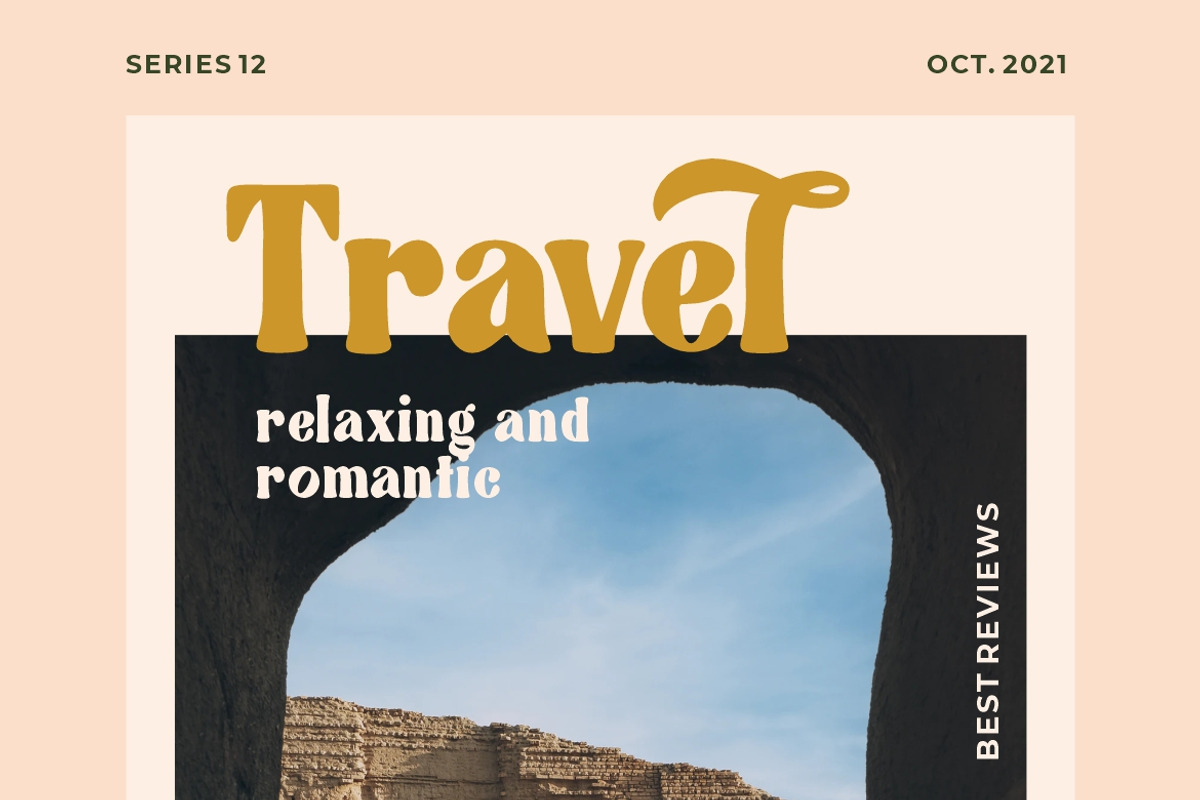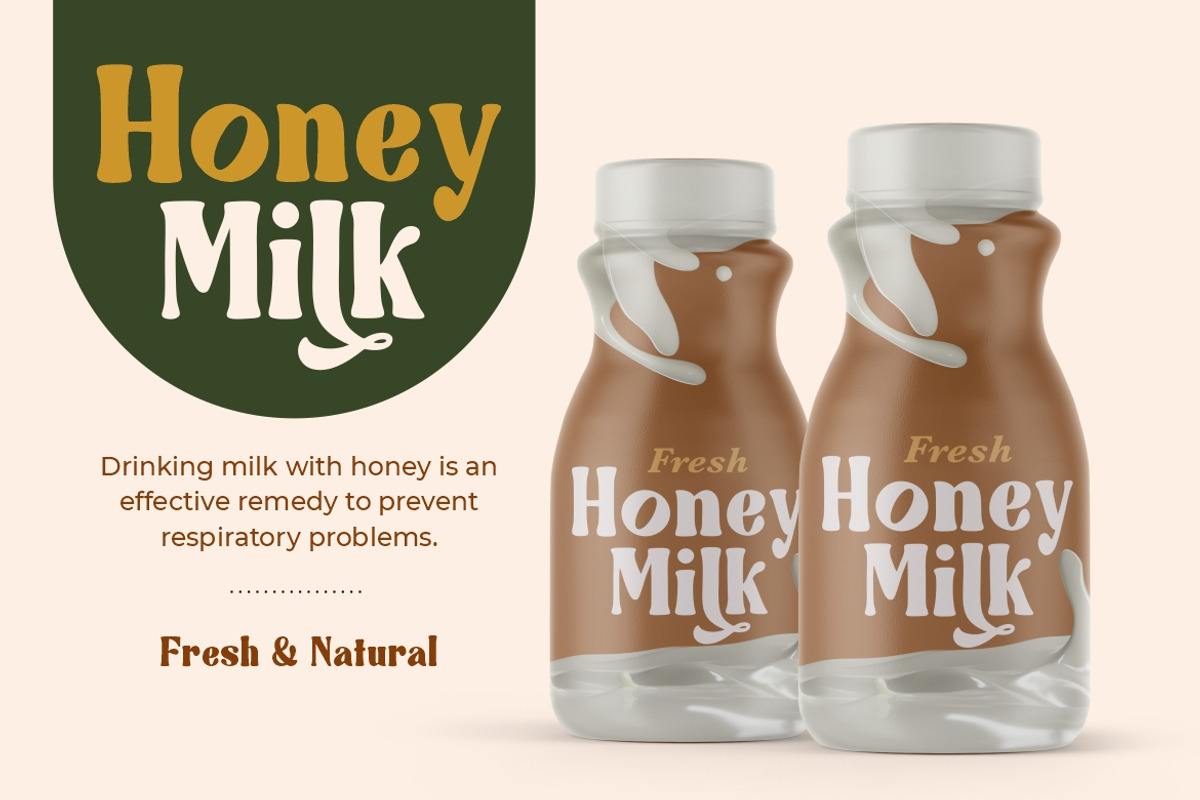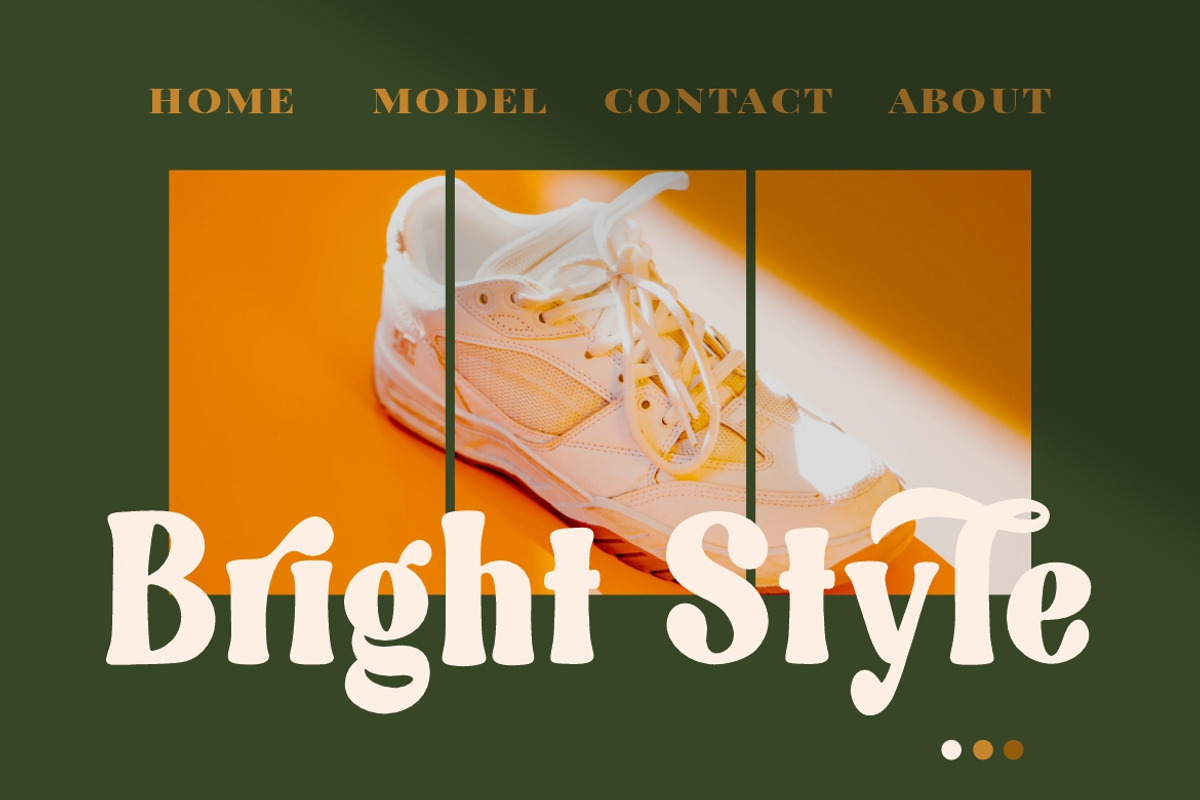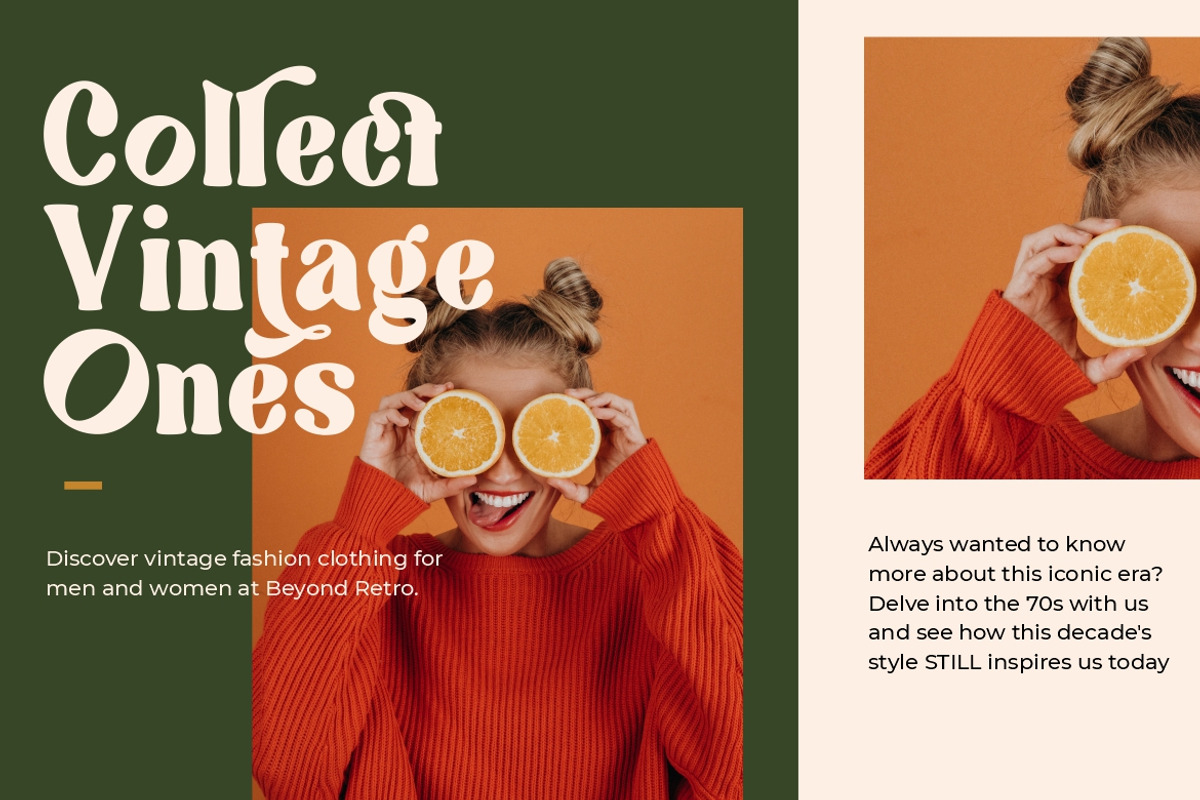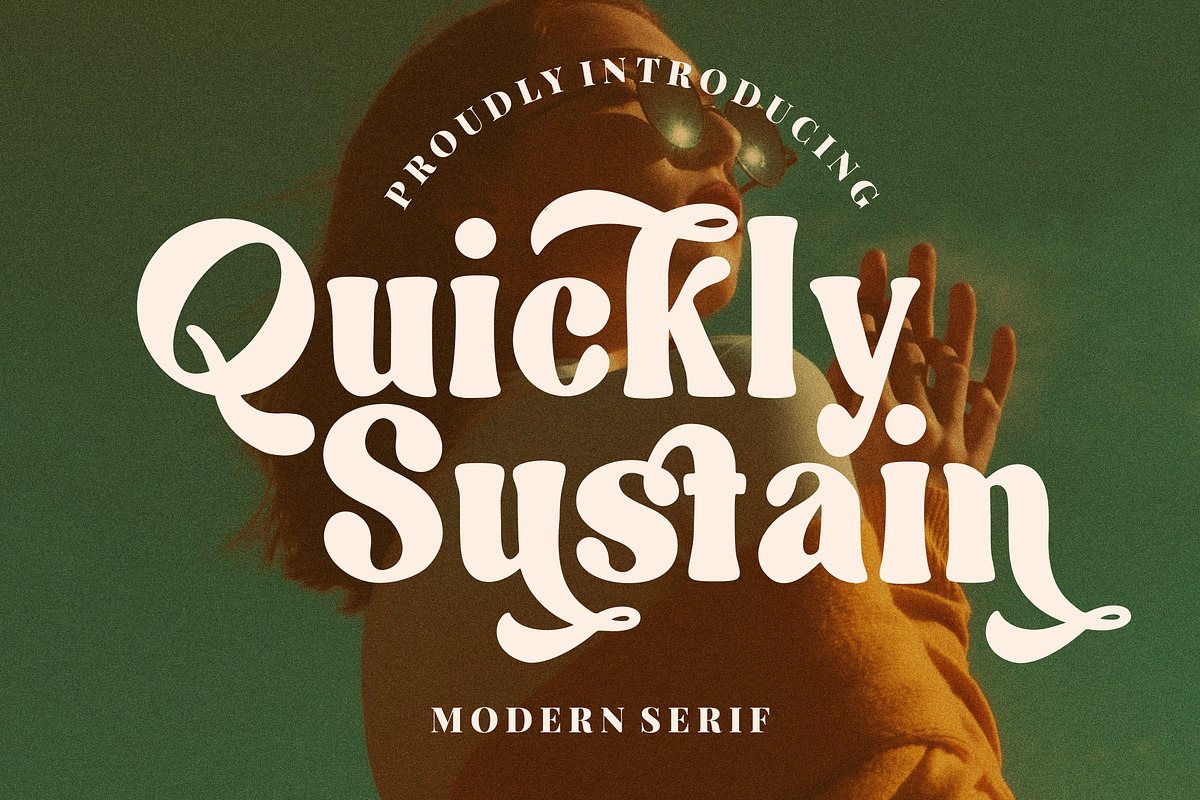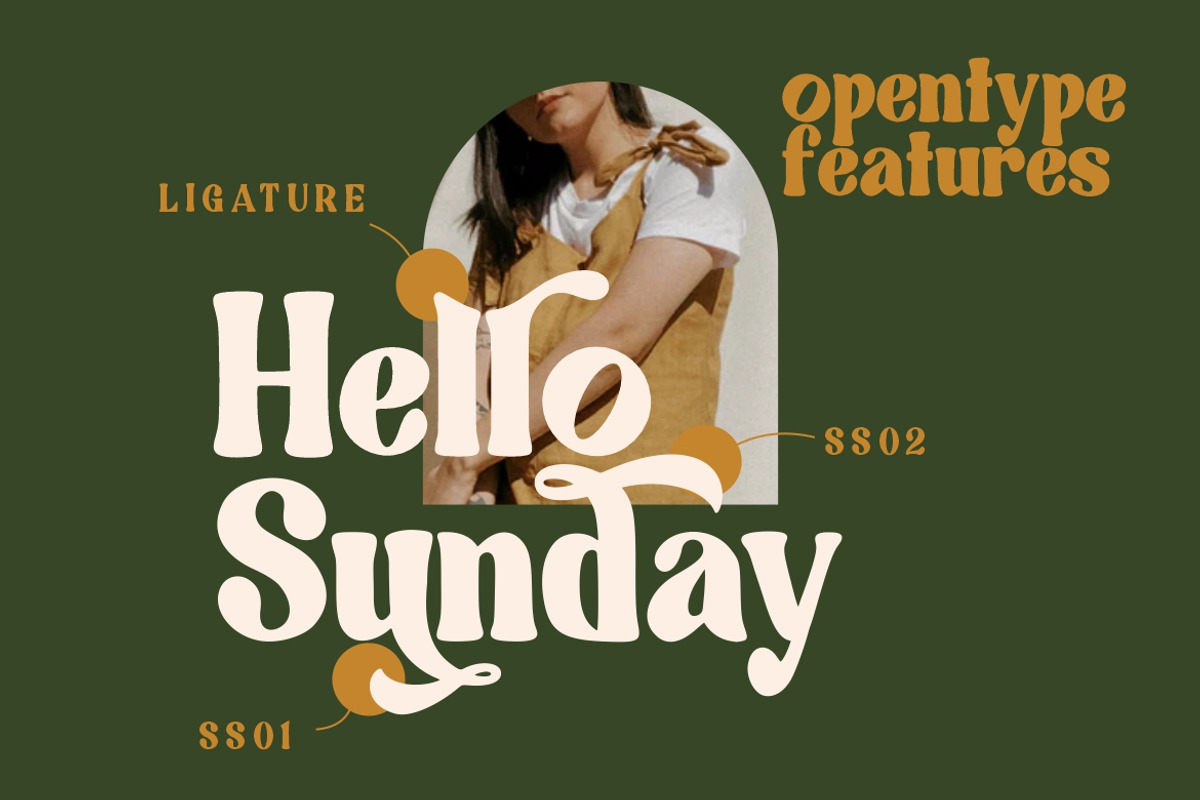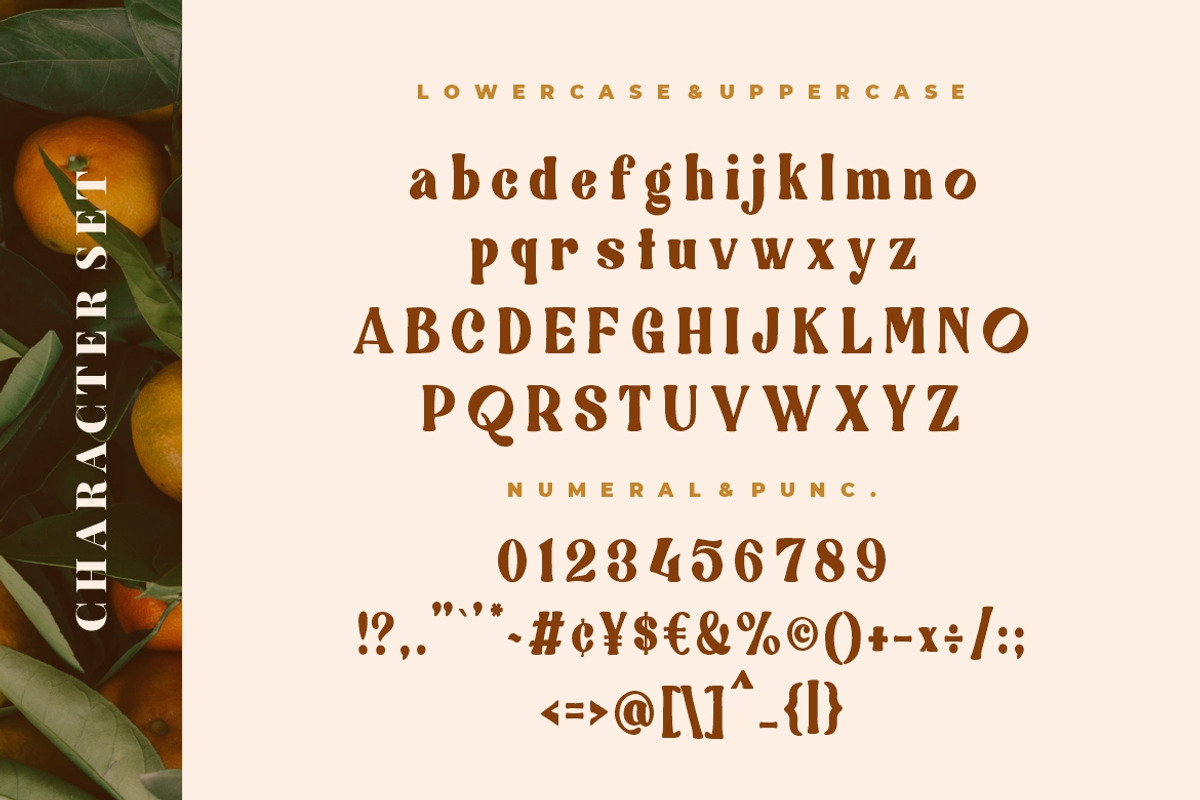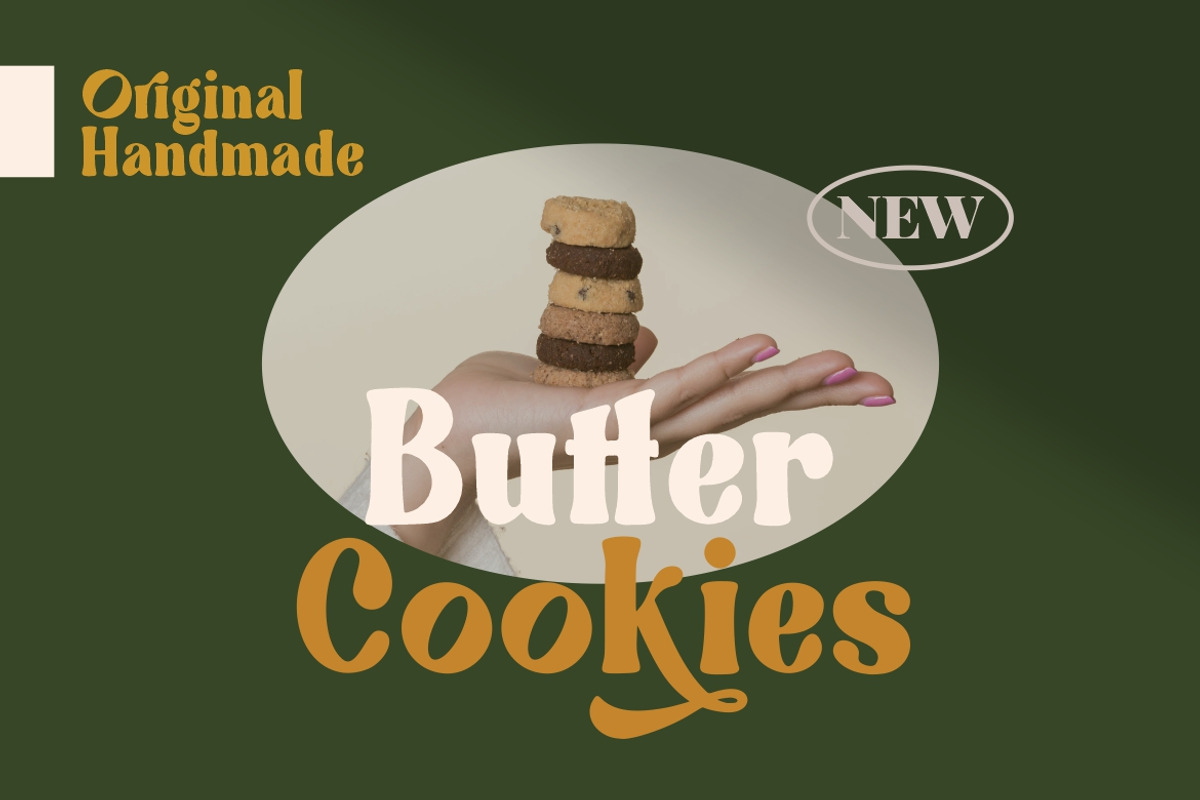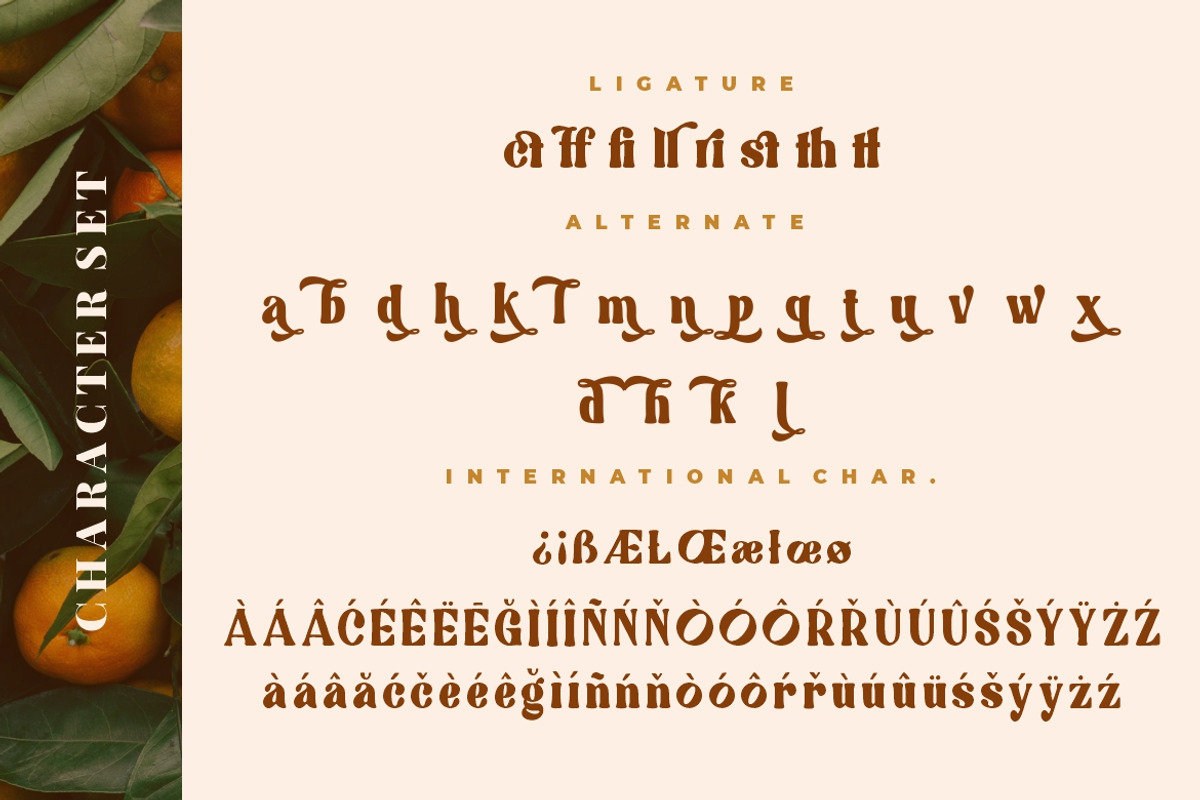
Quickly Sustain Modern Serif
Quickly Sustain is a modern serif font which a chic and feminine style that perfect for your latest project.
Quickly Sustain is perfect for branding projects, logo, wedding designs, social media posts, advertisements, product packaging, product designs, label, photography, watermark, invitation, stationery and any projects that need handwriting taste.
- Ligature & Alternate